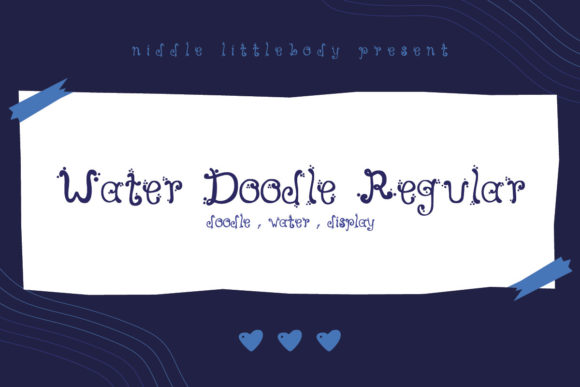
Welcome to the world of Water Doodle Font, a playful and captivating addition to your creative arsenal. This enchanting script from the creative mind of Niddle Littlebody is a masterpiece that will add a touch of magic to your designs.
Water Doodle Font is more than just a set of letters; it's a gateway to a world of possibilities. Its whimsical curves and playful style are perfect for evoking a sense of wonder and joy in your projects. Whether you're creating heartfelt letters to loved ones, designing eye-catching logos, or crafting captivating posters, Water Doodle Font will elevate your work to new heights.
Its versatility knows no bounds. Its elegant strokes are perfect for adding a touch of sophistication to your brand identity, while its playful nature makes it an ideal choice for the apparel industry. Its ability to capture the essence of music and film makes it the perfect choice for album covers and movie titles. And let's not forget about the gaming and magazine industries, where Water Doodle Font's charm and charisma will leave a lasting impression.
In the world of fonts, Water Doodle Font is a true original. Its unique character and boundless potential make it a must-have for any designer looking to add a touch of whimsy and wonder to their creations. Don't miss out on the chance to experience the magic of Water Doodle Font. Download it today and let your creativity flow!